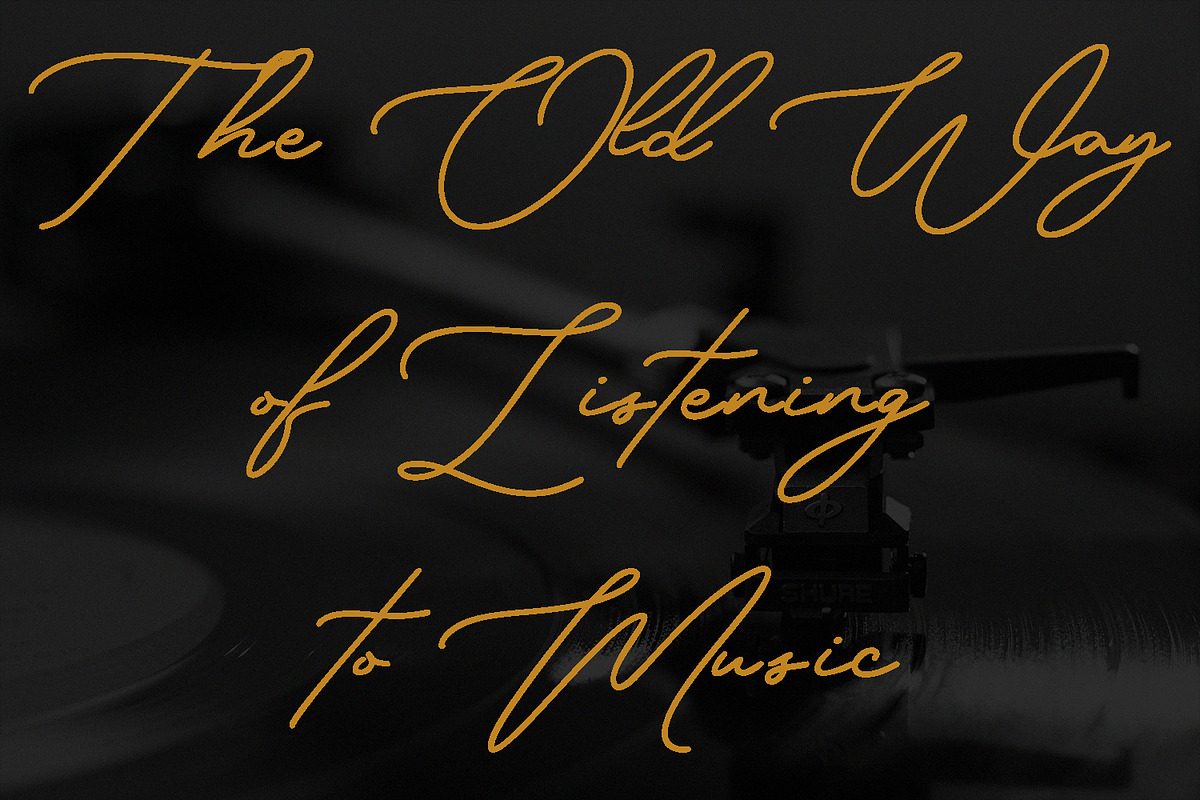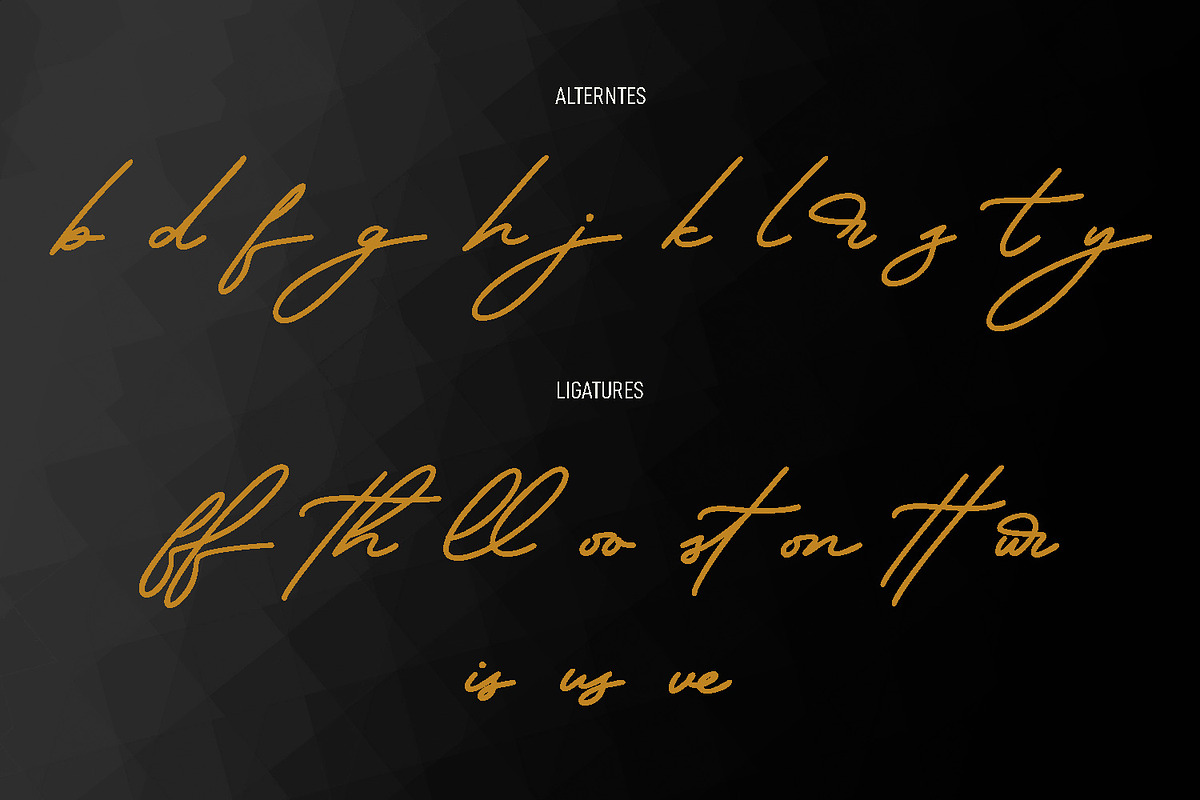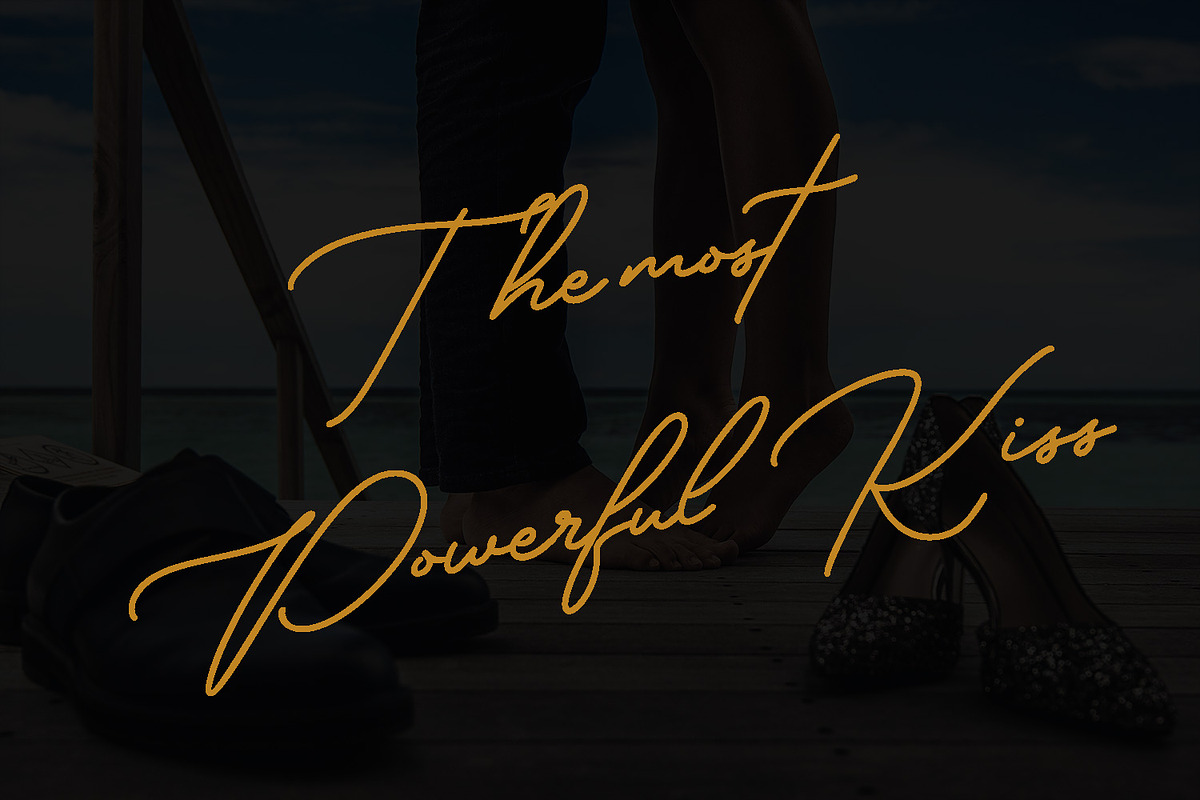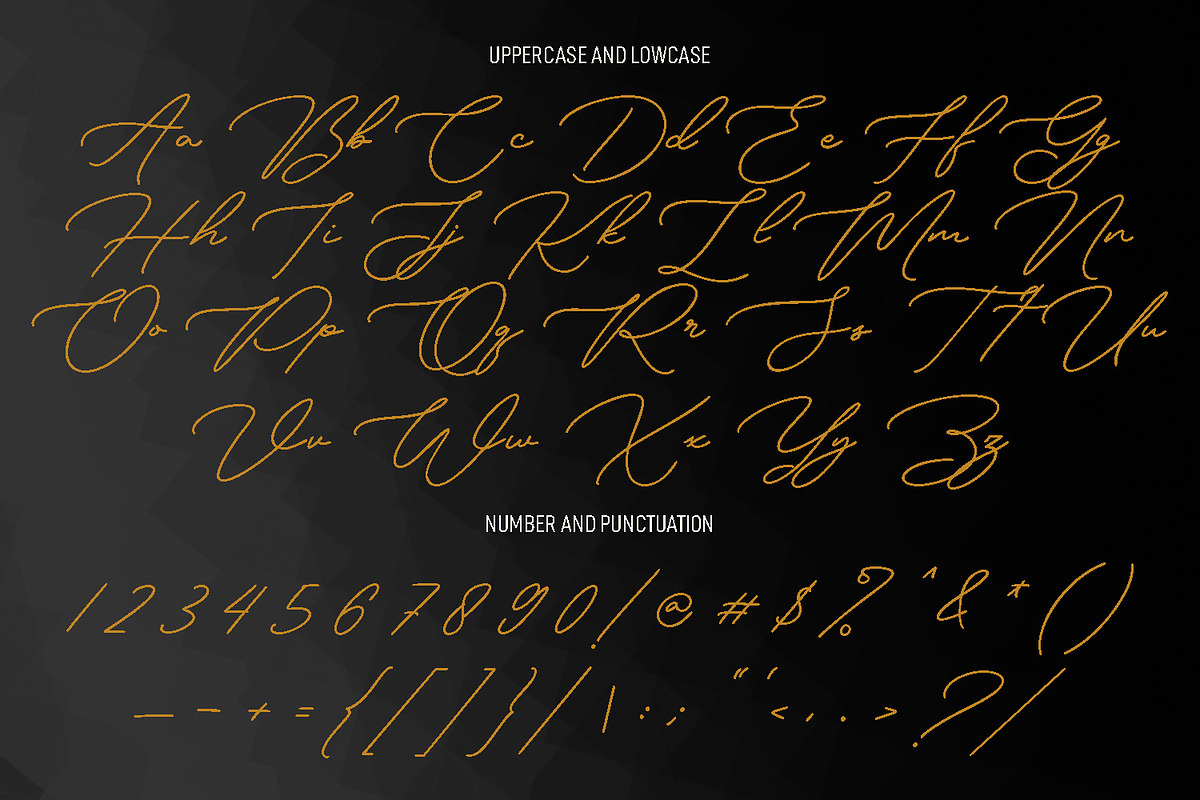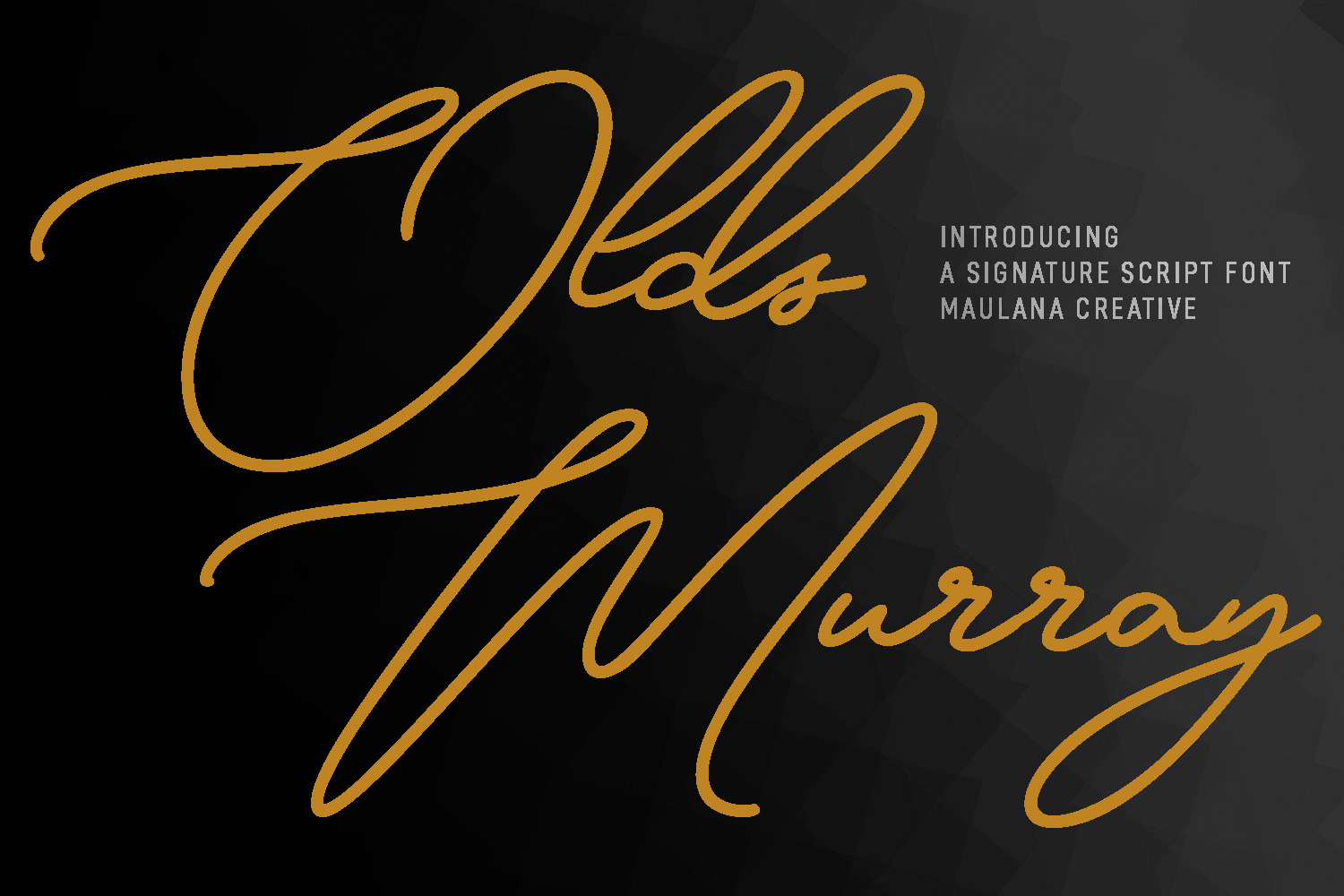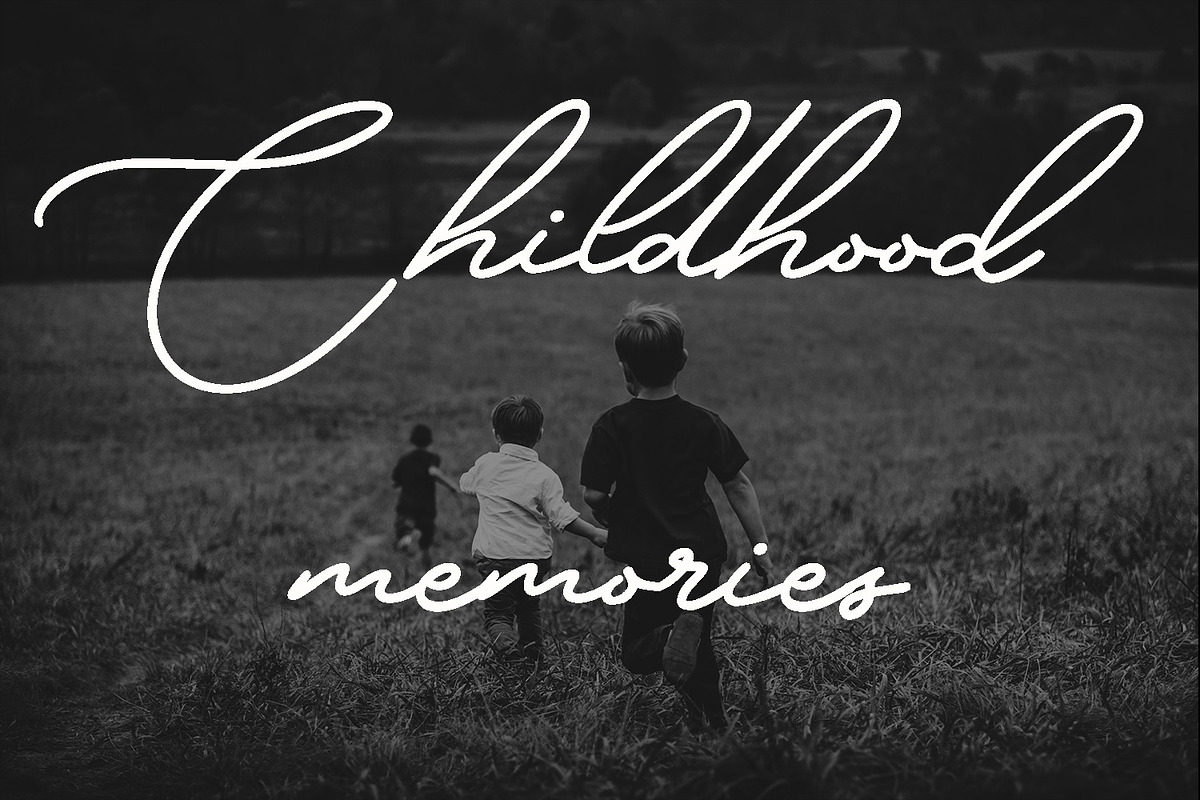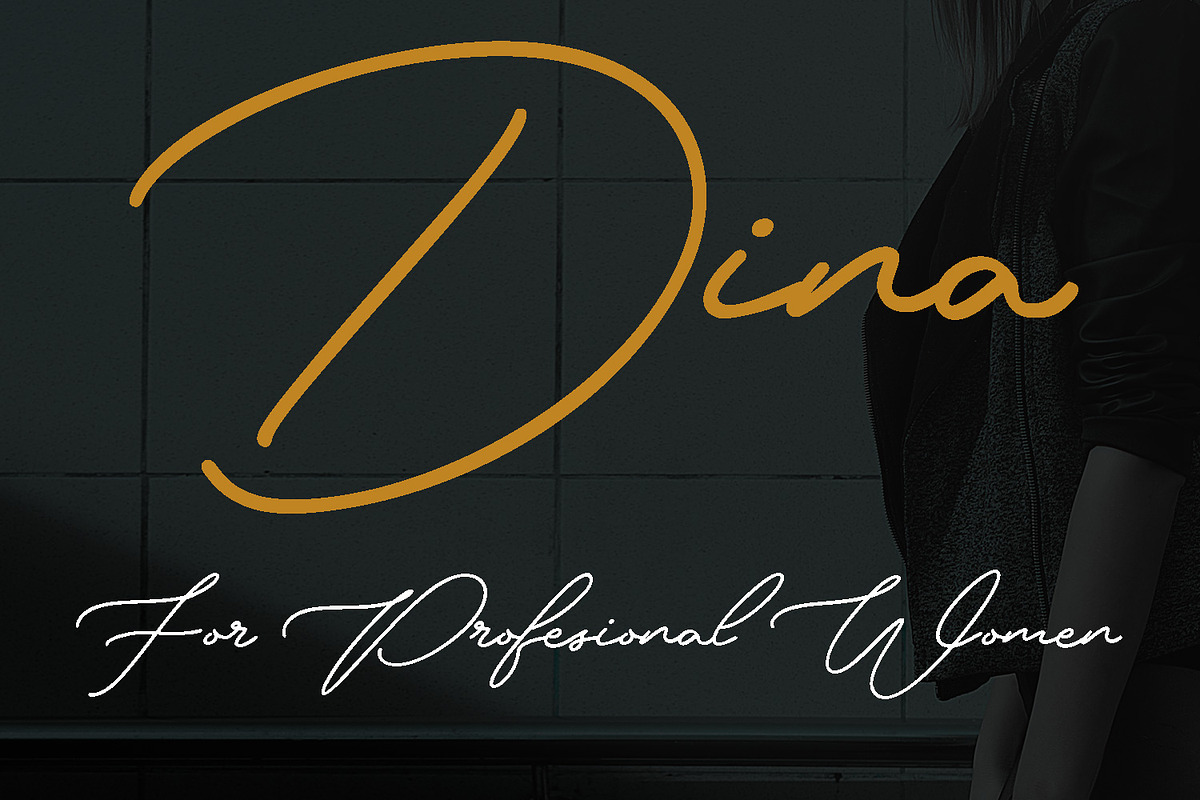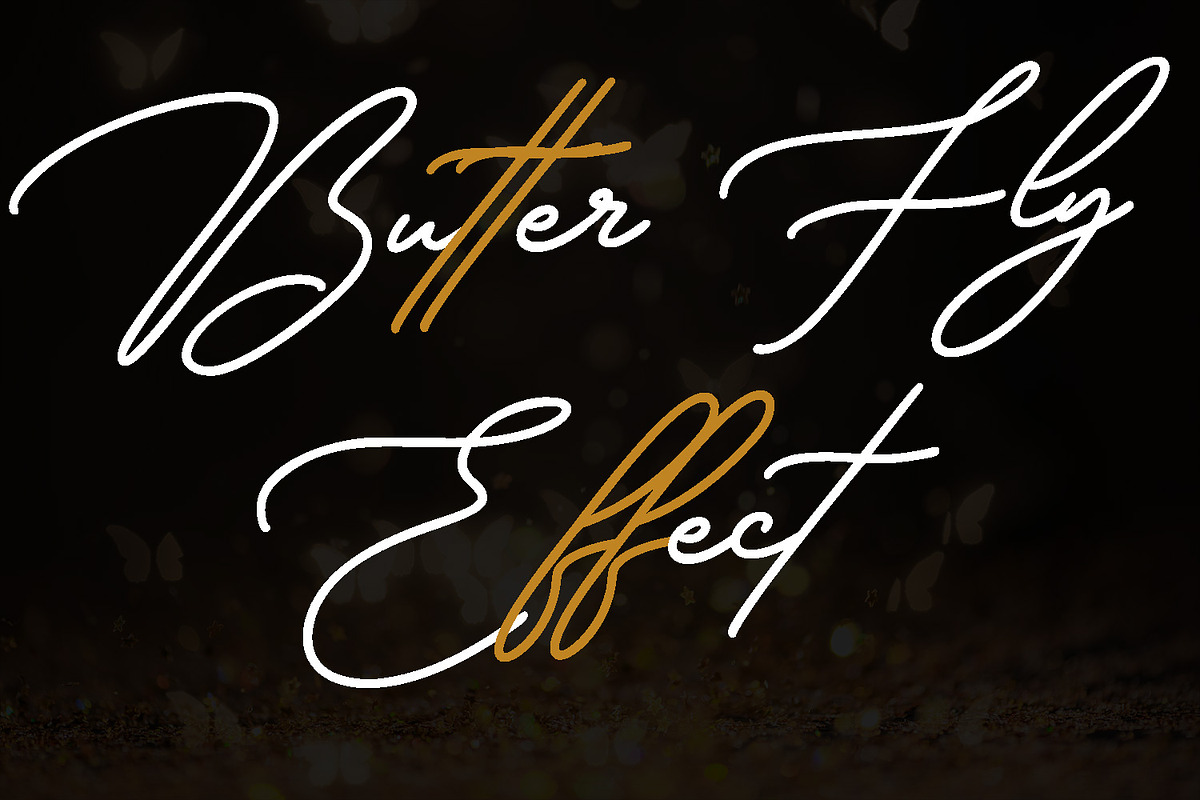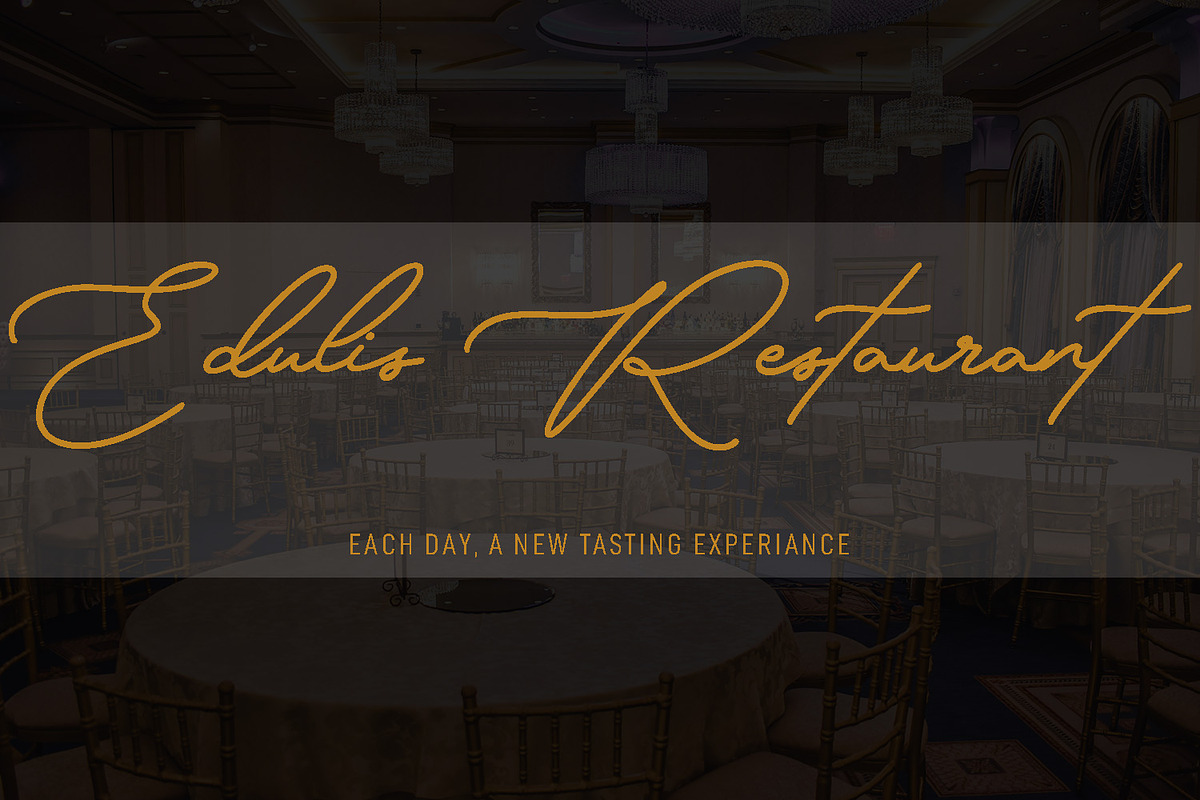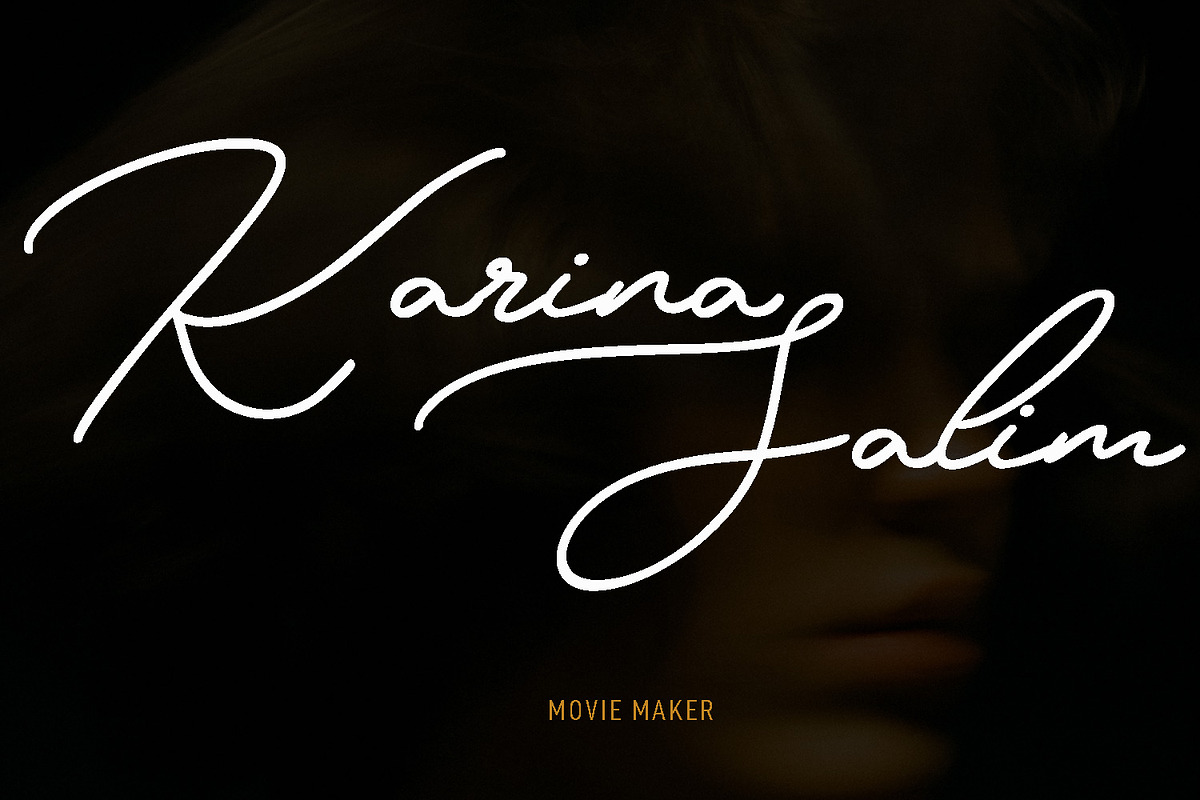
Olds Murray Signature Script Font
Olds Murray is an expressive casual signature script font. With regular consist mono-line contrast stroke, fun character with a bit of ligatures and alternates. To give you an extra creative work. Olds Murray font support multilingual more than 100+ language. This font is good for logo design, Social media, Movie Titles, Books Titles, a short text even a long text letter and good for your secondary text font with sans or serif. Make a stunning work with Olds Murray font.